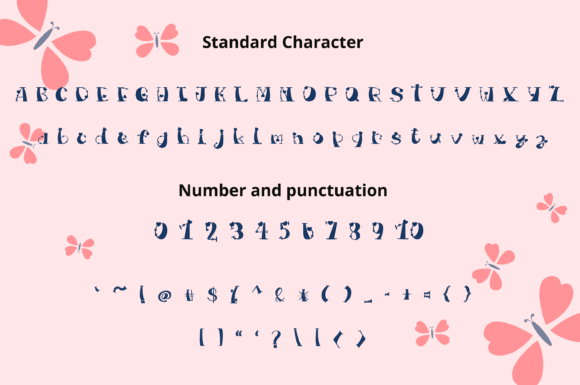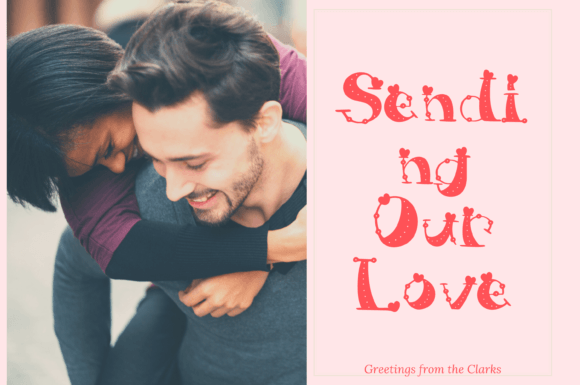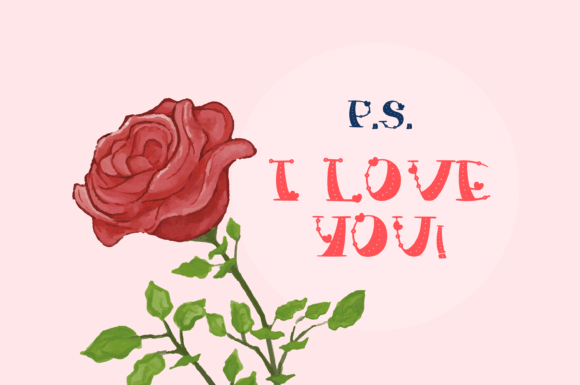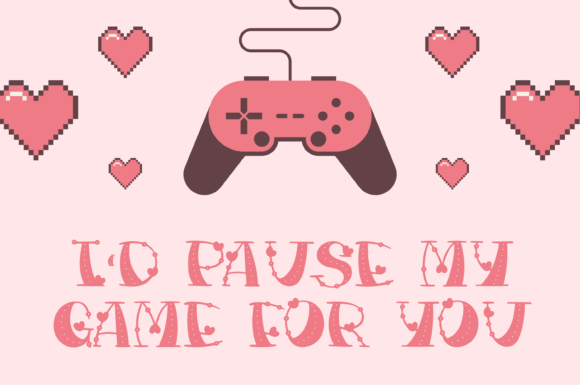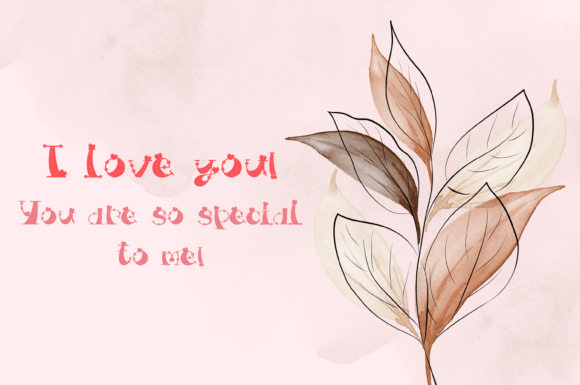
Discover the Charm of Forever Love Font: Elevate Your Designs with Whimsy and Adorability
Are you on the hunt for a font that adds a touch of whimsy and adorability to your designs? Look no further than the Forever Love Font. This delightful display font is perfect for crafters, designers, and anyone looking to infuse their creative projects with a sense of charm and personality. In this article, we’ll dive into the world of Forever Love Font, exploring its features, uses, and the magic it can bring to your work.
What is Forever Love Font?
Forever Love Font is an adorable and whimsical display font designed to capture the hearts of designers and crafters alike. Its unique and playful style makes it an excellent choice for a wide range of projects, from greeting cards and invitations to branding, packaging, and digital content. With its elegant yet quirky appearance, Forever Love Font is sure to make your designs stand out from the crowd.
Key Features of Forever Love Font
- Whimsical Design: Forever Love Font boasts a charming and whimsical design that adds a touch of personality to any project.
- Display Font: This font is specifically designed as a display font, making it perfect for headlines, titles, and short texts.
- Versatility: Forever Love Font can be matched with an incredibly large set of projects, giving you the flexibility to use it in various creative endeavors.
Uses of Forever Love Font
Forever Love Font is incredibly versatile and can be used in a variety of projects, including:
- Greeting Cards and Invitations: Add a touch of whimsy and charm to your greeting cards and invitations with Forever Love Font.
- Branding and Packaging: Use Forever Love Font to create unique and eye-catching branding and packaging designs that stand out from the competition.
- Digital Content: Elevate your digital content, such as blog posts, social media graphics, and email newsletters, with the playful and adorable style of Forever Love Font.
- Crafting Projects: Forever Love Font is perfect for crafters who want to add a personal touch to their projects, such as scrapbooking, journaling, and handmade cards.
Tips for Using Forever Love Font
To get the most out of Forever Love Font, here are some tips to keep in mind:
- Pair with Other Fonts: Experiment with pairing Forever Love Font with other fonts to create a unique and visually appealing design.
- Use in Moderation: While Forever Love Font is adorable, it’s essential to use it in moderation to avoid overwhelming your design.
- Experiment with Colors: Play around with different colors to find the perfect combination that complements Forever Love Font and enhances your design.
| Font Name | Forever Love Font |
| Author | AchiArt |
In conclusion, Forever Love Font is a delightful and whimsical display font that can add a touch of charm and personality to your designs. With its versatility, ease of use, and adorable style, it’s an excellent choice for designers and crafters looking to elevate their creative projects. Whether you’re working on a greeting card, branding project, or digital content, Forever Love Font is sure to make your designs stand out. So why wait? Discover the magic of Forever Love Font and bring your creative ideas to life!